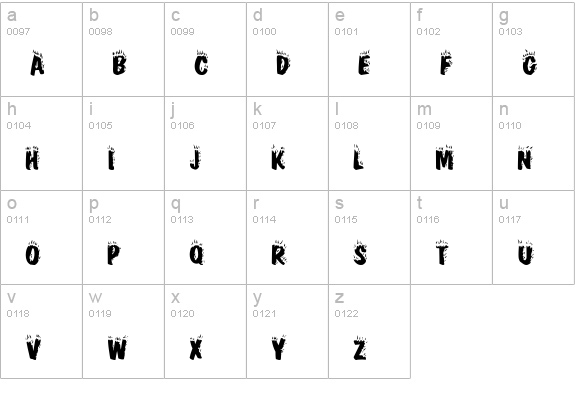
CracklingFire Regular Font Details
CracklingFire Regular is the standard, neutral variant in the CracklingFire typeface family \xE2\x80\x94 well suited to general body text, paragraphs, and standard typographic work.
CracklingFire Regular font is a unique and eye-catching typeface that exudes warmth and energy, just like a crackling fire on a cold winter night. Its bold and dynamic design makes it perfect for headlines, posters, and branding materials that aim to make a statement. The playful flickering effect of the letters adds a touch of excitement and charm to any project. Best of all, CracklingFire Regular font is available for free download at FontsMarket.com, making it easily accessible to designers and creatives looking to add a touch of fiery flair to their creations. Whether you're working on a project that needs a bold and vibrant font or simply want to add some warmth to your designs, CracklingFire Regular font is sure to ignite your creativity.